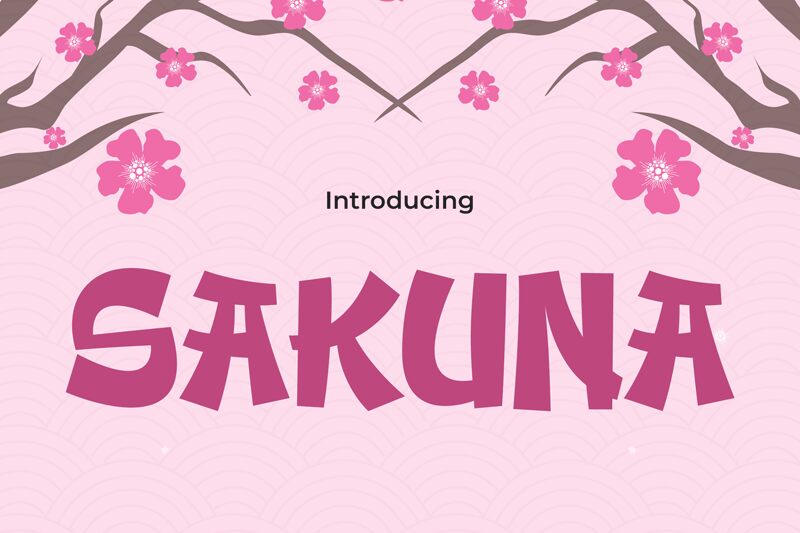
SAKUNA
Sakuna font by Pinisiart is a free decorative faux-Japanese typeface that instantly sets a scene. Chunky, hand-cut letterforms tilt and bend like painted signage, with bold black shapes that feel inky and energetic rather than stiff or digital. The rhythm between letters is irregular in a deliberate, crafted way, giving headlines a lively, street-market vibe that suggests steam, neon, and paper lanterns all at once.
Using Sakuna, this free font shines on ramen shop logos, sushi menus, anime-themed posters, convention banners, game titles, and bold YouTube thumbnails. The strong silhouettes stay legible even at a distance, making it great for signage or large hero text. Pair Sakuna with a clean, neutral sans serif for body copy to keep the mood playful but readable.